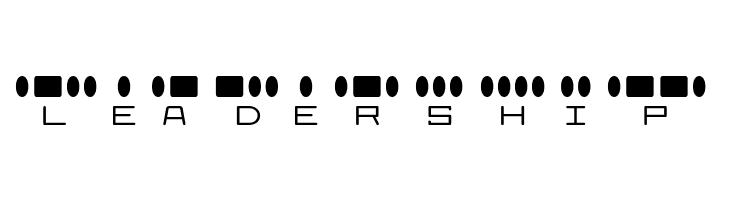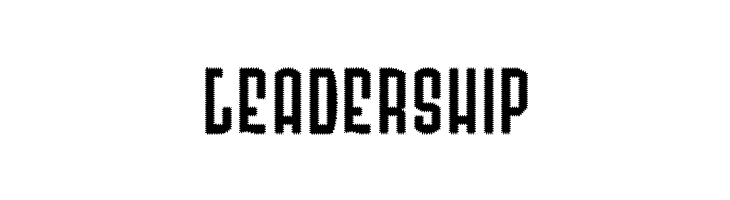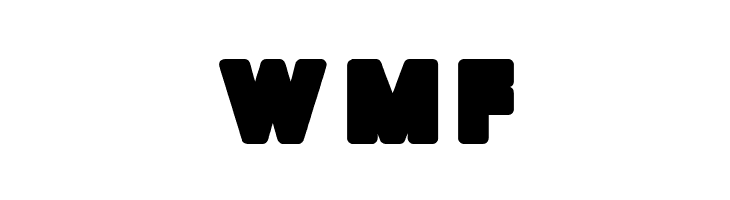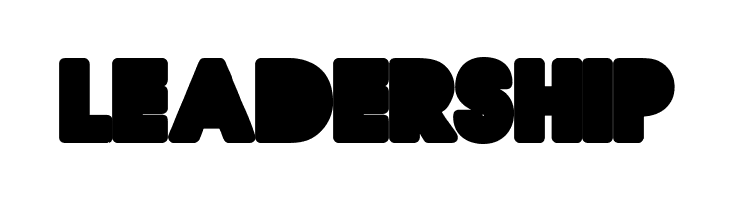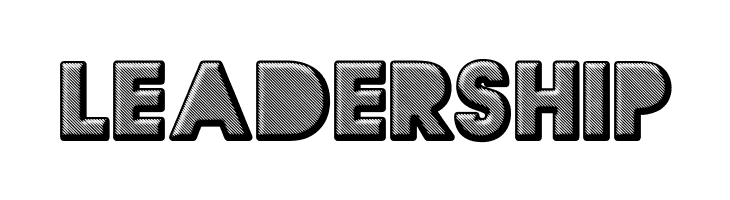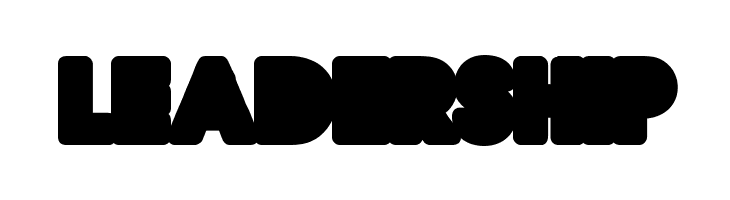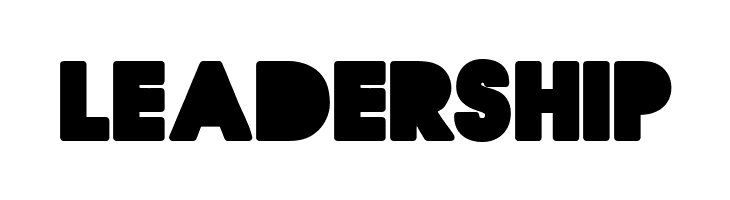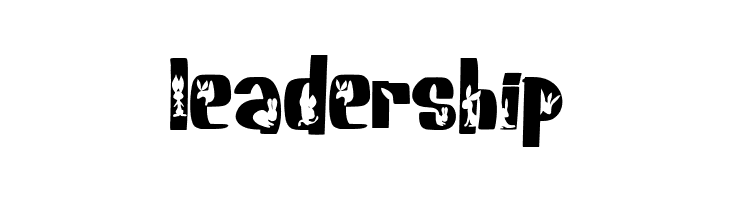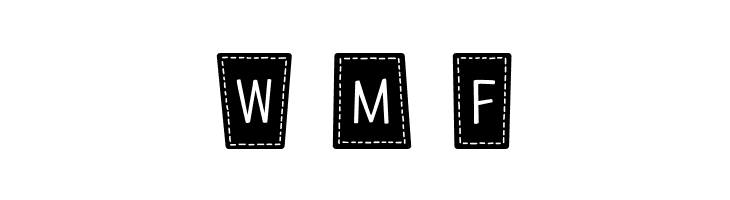
( Fonts by Em Nazar )
A bold, geometric font with unique circular motifs for a modern and playful look.
( Fonts by Jonathan S. Harris )
A bold, graffiti-inspired font with a rugged, hand-drawn appearance.
( Fonts by Feri Fauzi )
A bold, bone-like font with a jagged, textured design ideal for spooky themes.
( www.tattoowoo.com )
An ornate, decorative font with elaborate swirls and a calligraphic style.
( Fonts by Southype )
A bold, hand-drawn font with textured, sketch-like characters.
( Fonts by Billy Argel )
Bold, halftone-patterned font with a retro, comic book style.
( Fonts by Billy Argel )
A bold, italic font with a halftone pattern, exuding speed and energy.
( Fonts by Billy Argel )
A bold, dynamic font with a halftone effect and slanted characters, perfect for modern designs.
( Fonts by Billy Argel )
A bold, retro font with a halftone pattern and three-dimensional effect.
( Fonts by Brittney Murphy Design )
A playful, patchwork-style font with dotted borders and a handcrafted feel.
( Fonts by Abo Daniel Studio )
A playful, decorative font with bold, hollow characters and star patterns.
( Fonts by Abo Daniel Studio )
A playful and whimsical font with bold, dynamic letterforms and quirky design elements.
( Fonts by Billy Argel )
A bold, rounded font with a playful and quirky style.
( Fonts by Billy Argel )
A bold, playful font with thick, rounded characters and a retro vibe.
( Fonts by Billy Argel )
A bold, geometric font with playful and quirky elements.
( Fonts by Billy Argel )
A playful decorative font with heart motifs, perfect for romantic and whimsical designs.
( Fonts by Billy Argel )
A bold, decorative font with heart cutouts and striped patterns.
( Fonts by Billy Argel )
A bold, playful font with a 3D effect and shadowing.
( Fonts by Misti's Fonts )
A playful, bold font with a stitched outline effect, ideal for creative projects.
( Fonts by FontKawaiiCo )
A decorative and eclectic font with unique patterns for each uppercase letter.